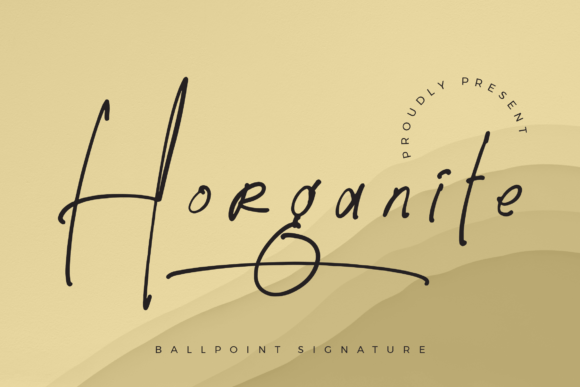
Introducing Horganite Font, the epitome of romance and elegance in the script font family. Created by the talented minds at Perspectype, this delicate and flowing handwritten font will captivate your heart and elevate your designs to new heights.
With its beautiful and well-balanced characters, Horganite Font is the perfect choice for expressing love and emotions in your projects. Whether you're designing wedding invitations, heartfelt quotes, or romantic branding materials, this font will add a touch of sophistication and charm.
Imagine creating a love letter that effortlessly conveys your deepest feelings. Horganite Font's graceful curves and intricate details will bring your words to life, evoking a sense of passion and tenderness. Each stroke of this font is crafted with utmost care, ensuring that every letter is a work of art.
Not only does Horganite Font excel in expressing love, but it also adapts flawlessly to a variety of design styles. Its versatility allows it to seamlessly blend with modern, vintage, and minimalist aesthetics. From logos to social media graphics, this font will effortlessly enhance the visual appeal of your creations.
But what truly sets Horganite Font apart is its ability to evoke emotions. Its captivating presence on your e-commerce collection page will instantly draw potential buyers in, sparking their curiosity and igniting a desire to explore further. The power of this font lies in its ability to touch the hearts of your audience, creating a connection that goes beyond mere typography.
As you browse through the collection page, you'll be enchanted by the diverse range of designs that Horganite Font complements. From romantic wedding stationery to heartfelt greeting cards, this font will effortlessly elevate your creations and leave a lasting impression on your audience.
Incorporating Horganite Font into your designs is like adding a sprinkle of love and magic. Let its elegance and grace become the voice of your heartfelt messages. Join the countless designers who have fallen under its spell and unlock a world of endless creative possibilities.